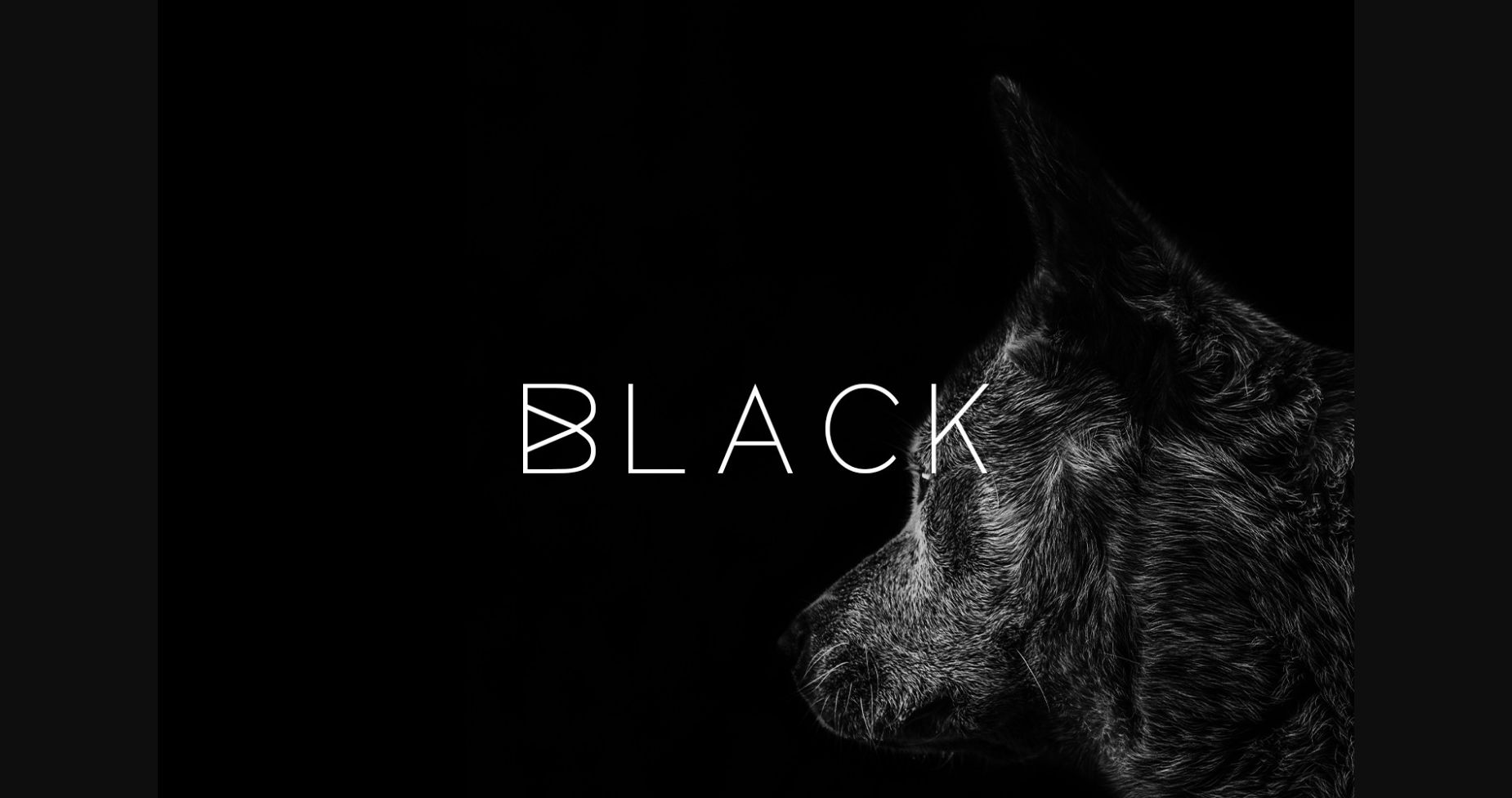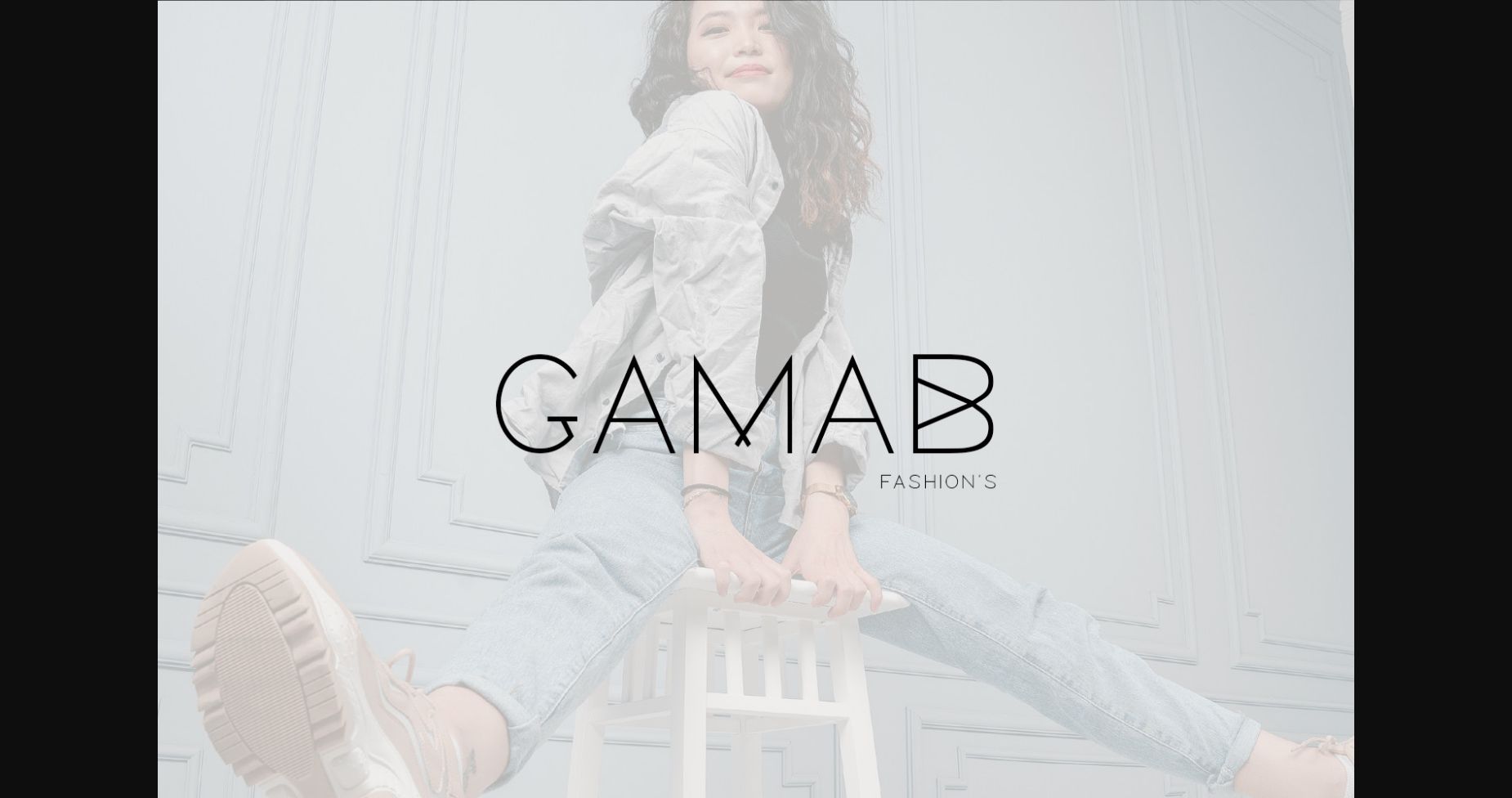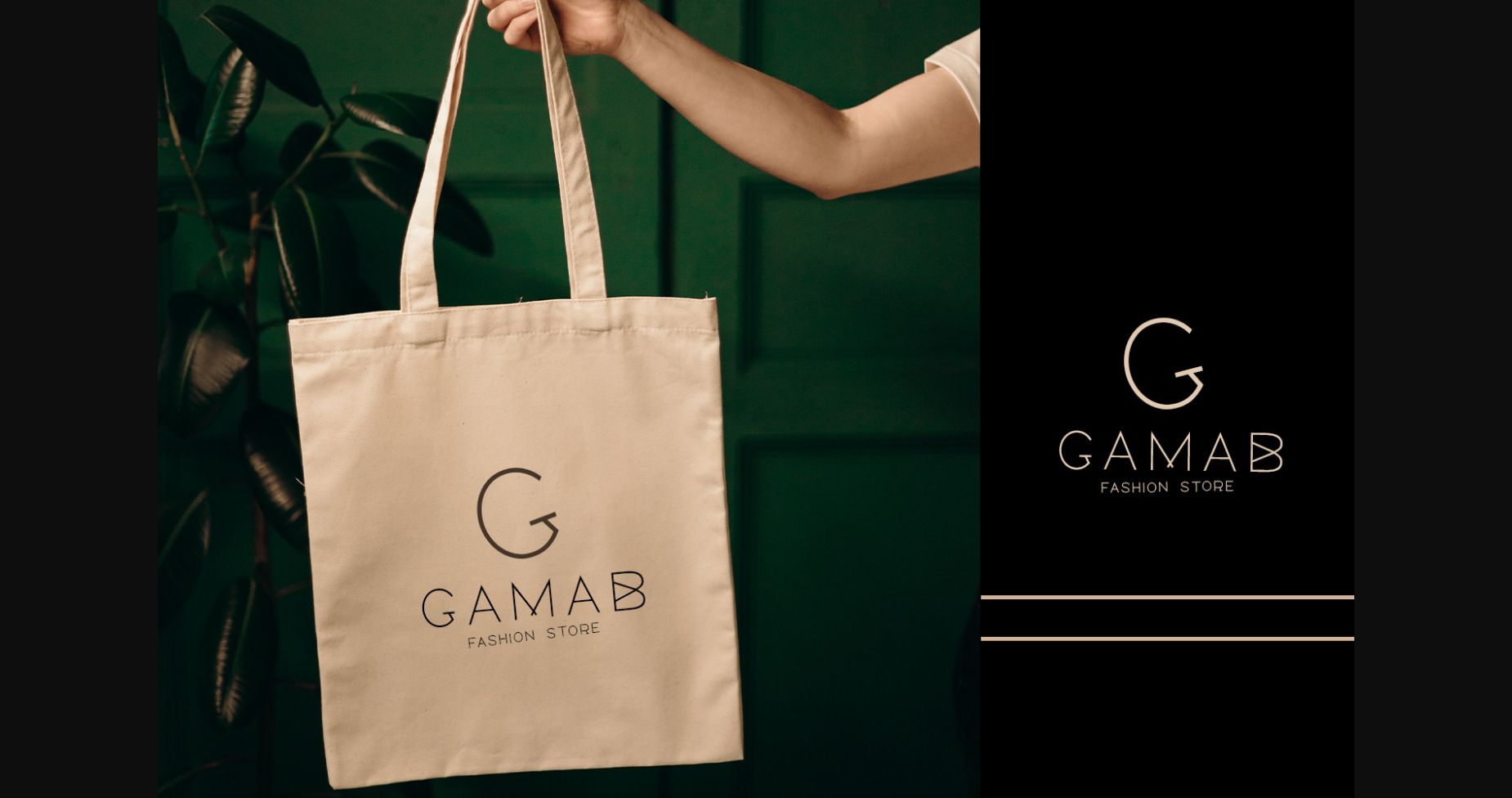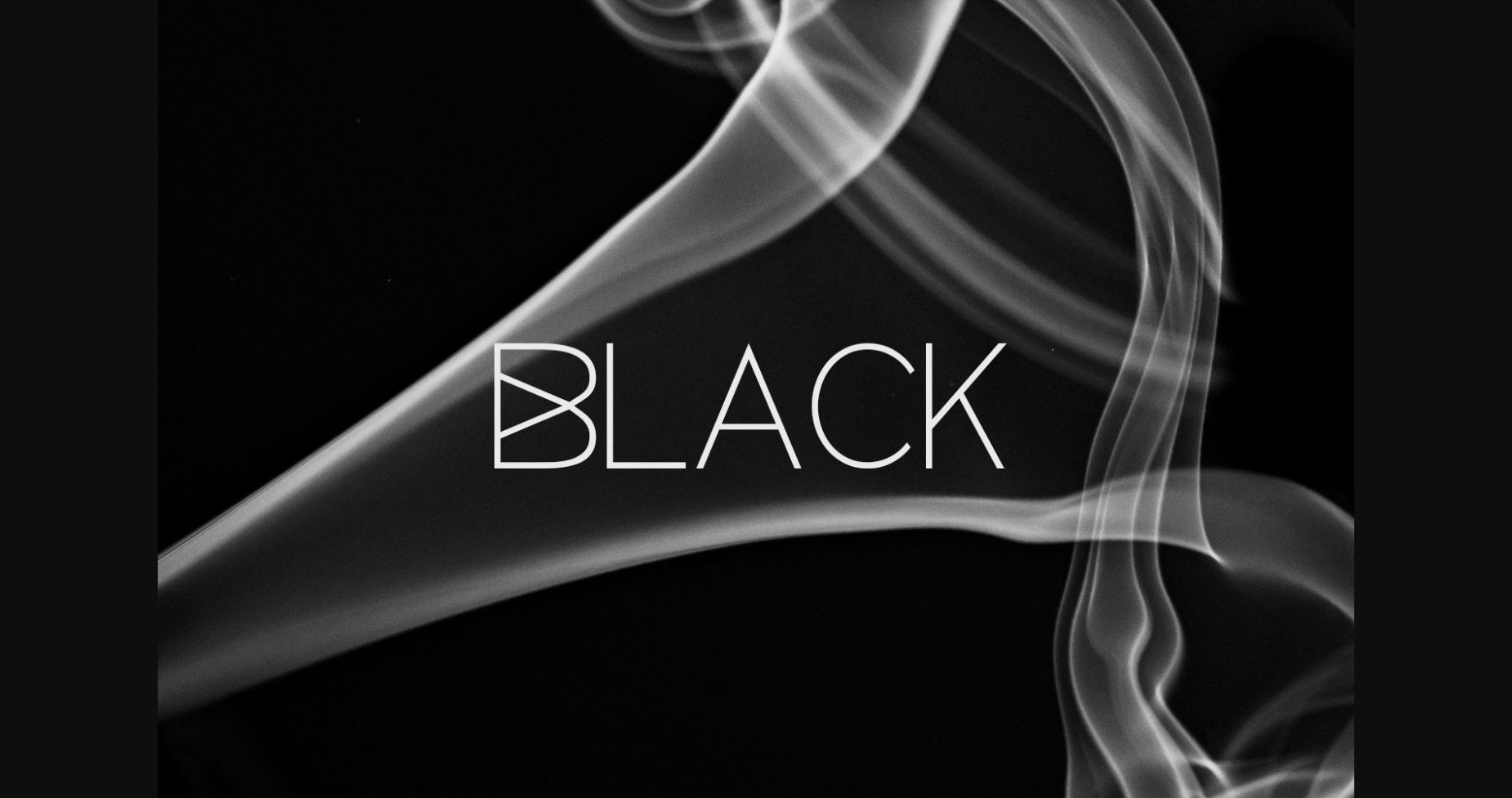
Black Font
About Black Font
Black is a thin and simple sans serif font. It can be matched to an incredibly large set of projects, so add it to your creative ideas and notice how it makes them stand out!